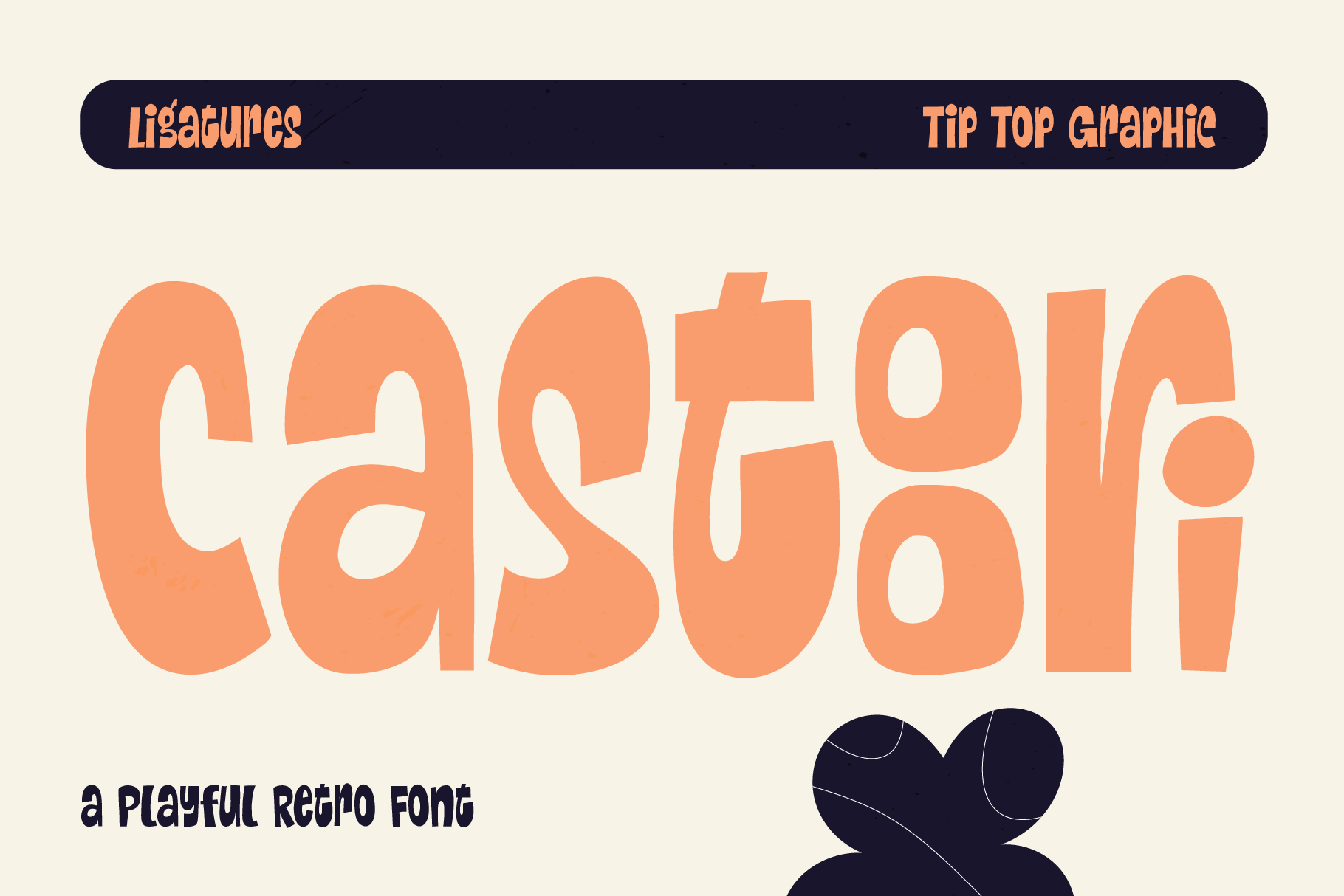
Castoori - A Playful Retro Font
Castoori – A Playful Retro Font captures the charm of vintage typography with a bright, cheerful twist. Its bold curves, quirky details, and nostalgic style make every word feel fun and full of character. Castoori brings the spirit of retro signage and classic prints into a modern, expressive design.
Perfect for retro branding, posters, packaging, stickers, social media graphics, and creative projects that want to stand out with a warm, playful vibe. Castoori adds a touch of joy and personality to any design.
Castoori - A Playful Retro Font features: Uppercase & Lowercase Punctuation & Numbers Multilingual Ligatures